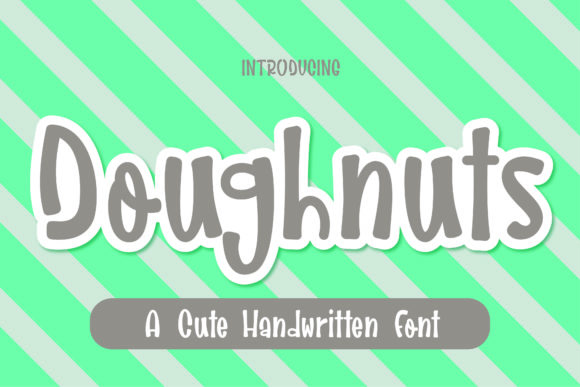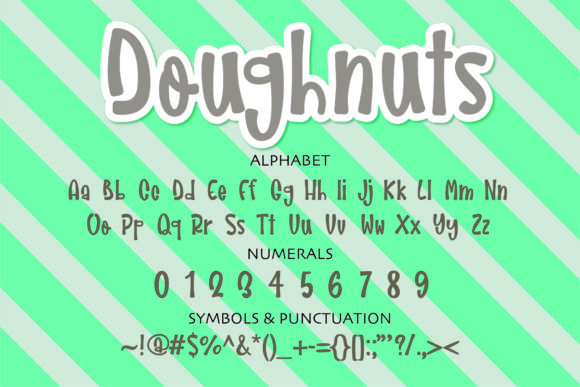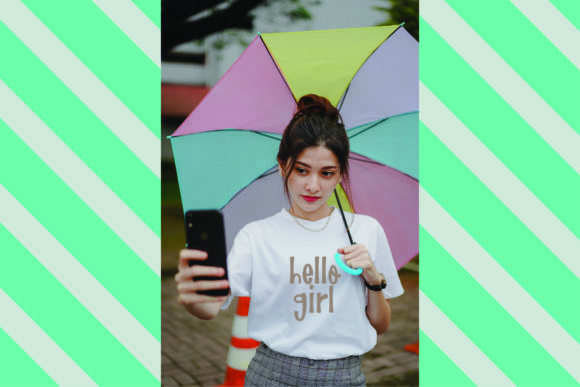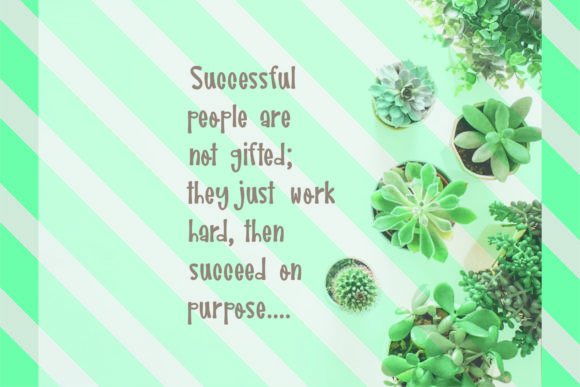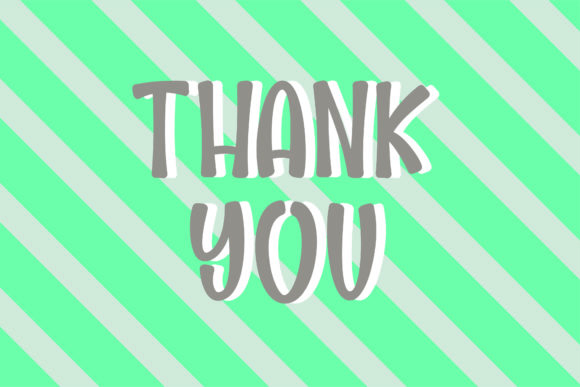
Doughnuts Font
About Doughnuts Font
Doughnuts is a cute and flexible handwritten font. Its natural and unique style makes it incredibly fitting to a large pool of designs. Have fun with this beautiful font and explore its endless variations!